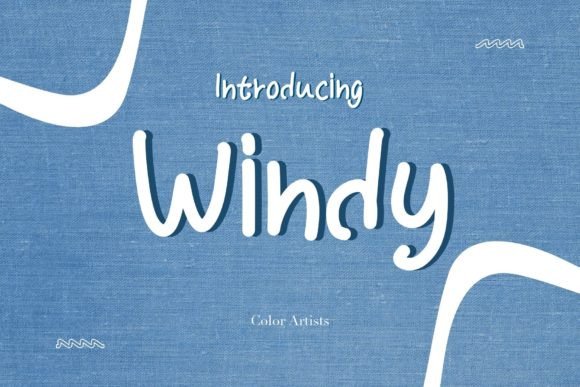
Embark on an artistic journey with Windy Font, a captivating script typeface that breathes life into your creations. Inspired by nature's gentle whisper, Windy Font dances across your screen, bringing a touch of magic and whimsy to every project. Let your imagination soar as you explore the endless possibilities of this elegant font, crafted to stir emotions and leave a lasting impression.
With Windy Font, your designs will sway in the wind, embodying the grace and fluidity of nature itself. Its sweeping curves and delicate details evoke a sense of effortless beauty, adding a touch of elegance and charm to any project. Whether you're crafting logos, invitations, social media posts, or website designs, Windy Font will elevate your work to new heights.
Step into a world of creativity with Windy Font. Let its whimsical strokes transport you to a realm where imagination knows no bounds. Embrace the beauty of imperfection and allow the natural flow of Windy Font to guide your designs. Its versatility makes it a perfect choice for a wide range of projects, from playful branding to heartfelt invitations.
Whether you're a seasoned designer seeking a touch of inspiration or a newcomer eager to explore the world of typography, Windy Font is your perfect companion. Its user-friendly design makes it accessible to all skill levels, allowing you to create stunning visuals with ease. Join the creative revolution and let Windy Font ignite your passion for design.